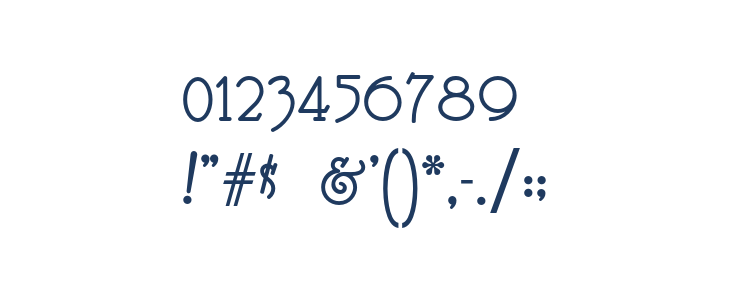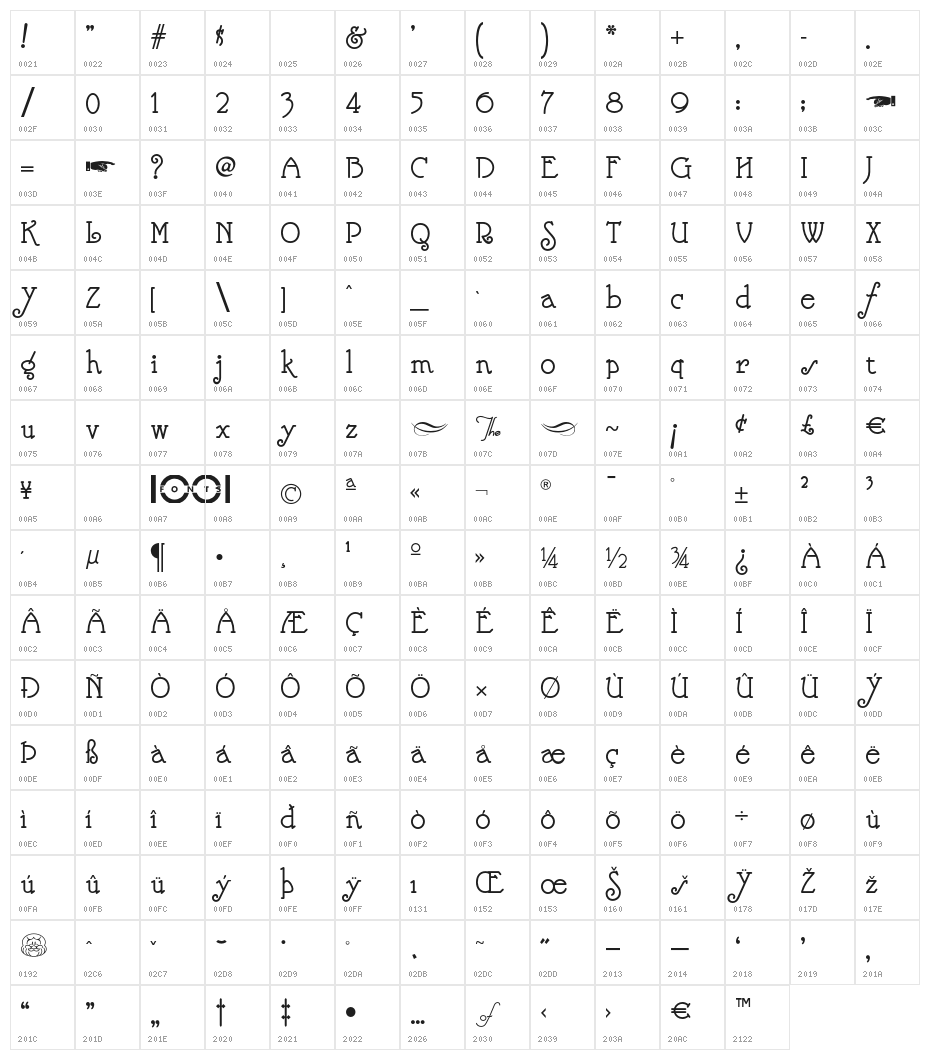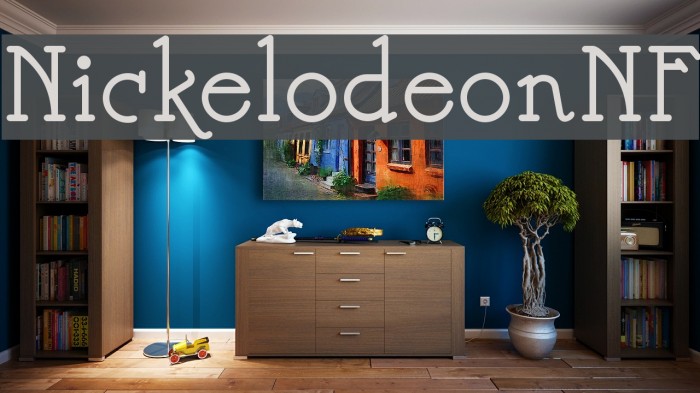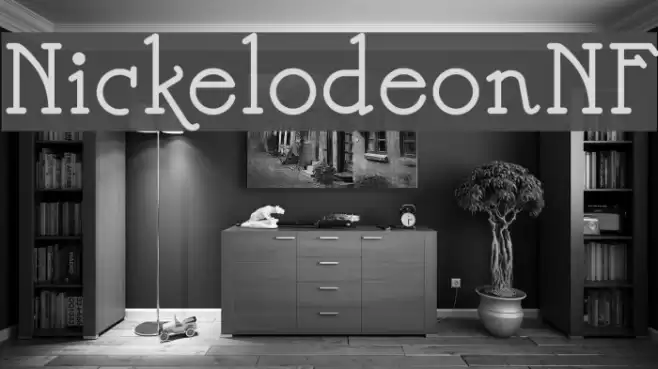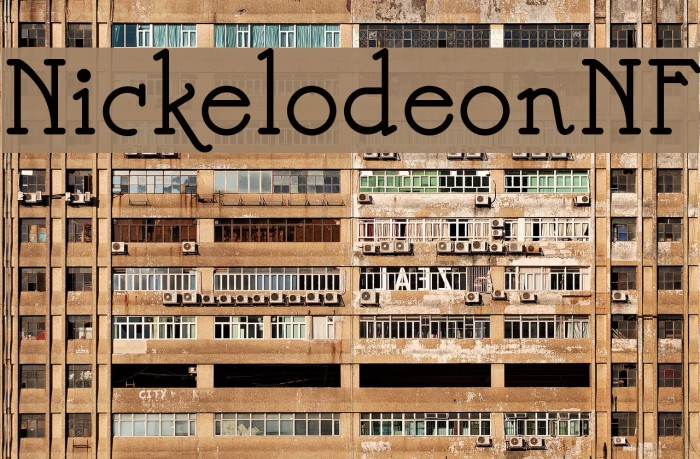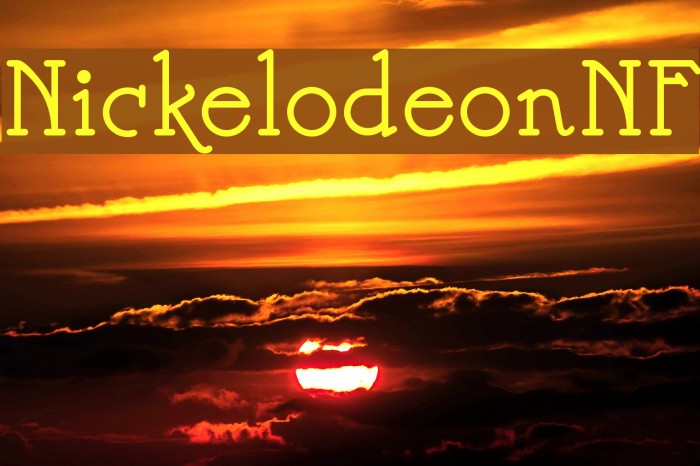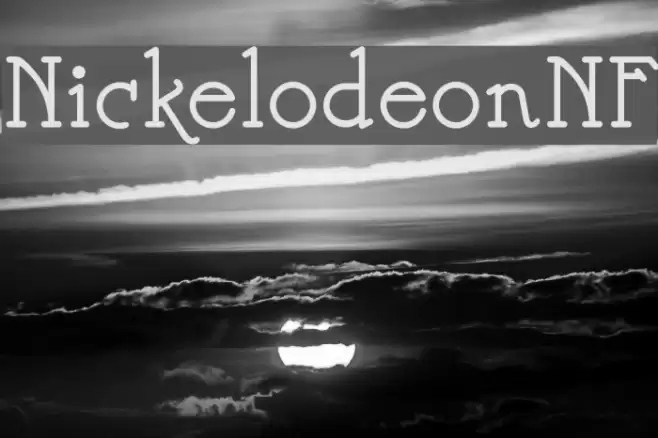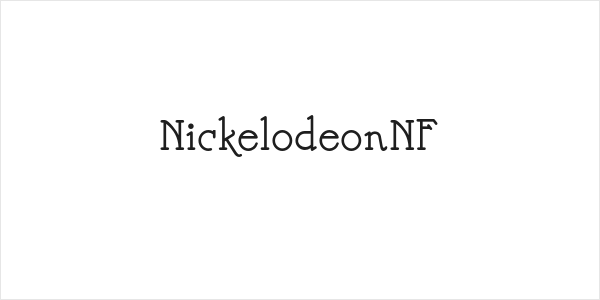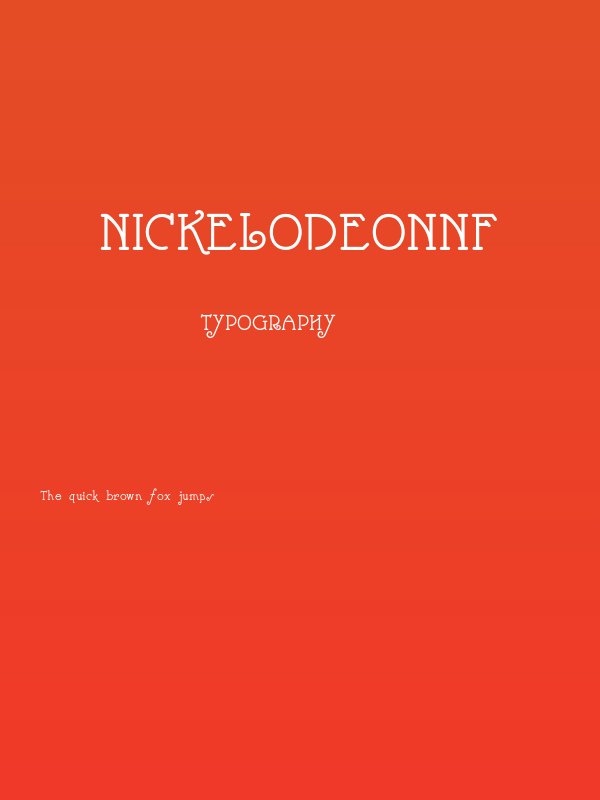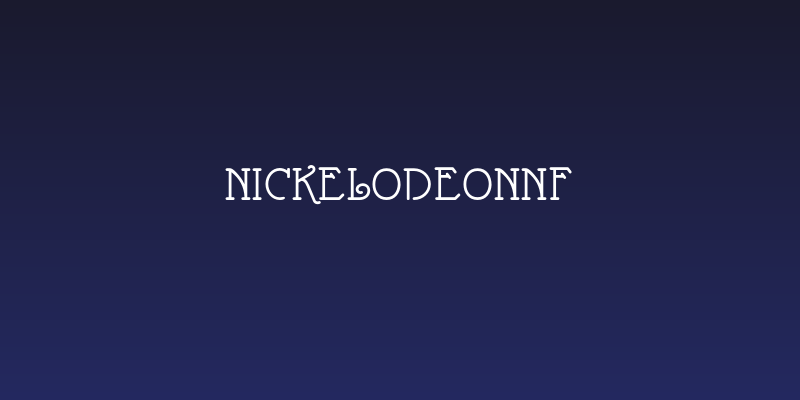
NickelodeonNF Font
NickelodeonNF Description
This font features a playful and whimsical style, characterized by its unique and quirky letterforms. The uppercase letters have a distinct flair with some incorporating spiral-like elements, adding a sense of fun and creativity. The lowercase letters maintain a consistent style, with some letters featuring loops and curls that enhance the font's playful nature. The numerals are clear and legible, matching the overall style with slight embellishments. Special characters are designed to complement the font's whimsical aesthetic, making it suitable for creative and informal projects.
| Overall Style | Whimsical |
| Proposed Projects | Ideal for children's books, playful branding, creative invitations, and fun posters. |